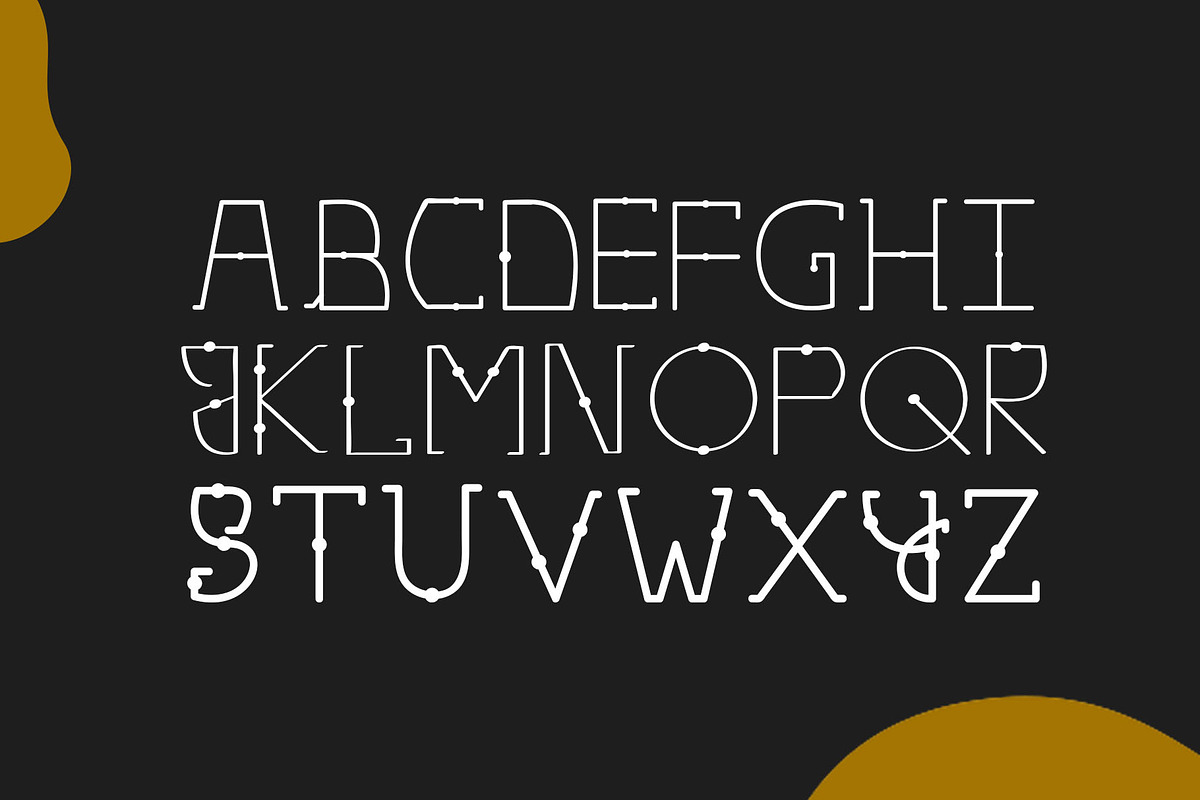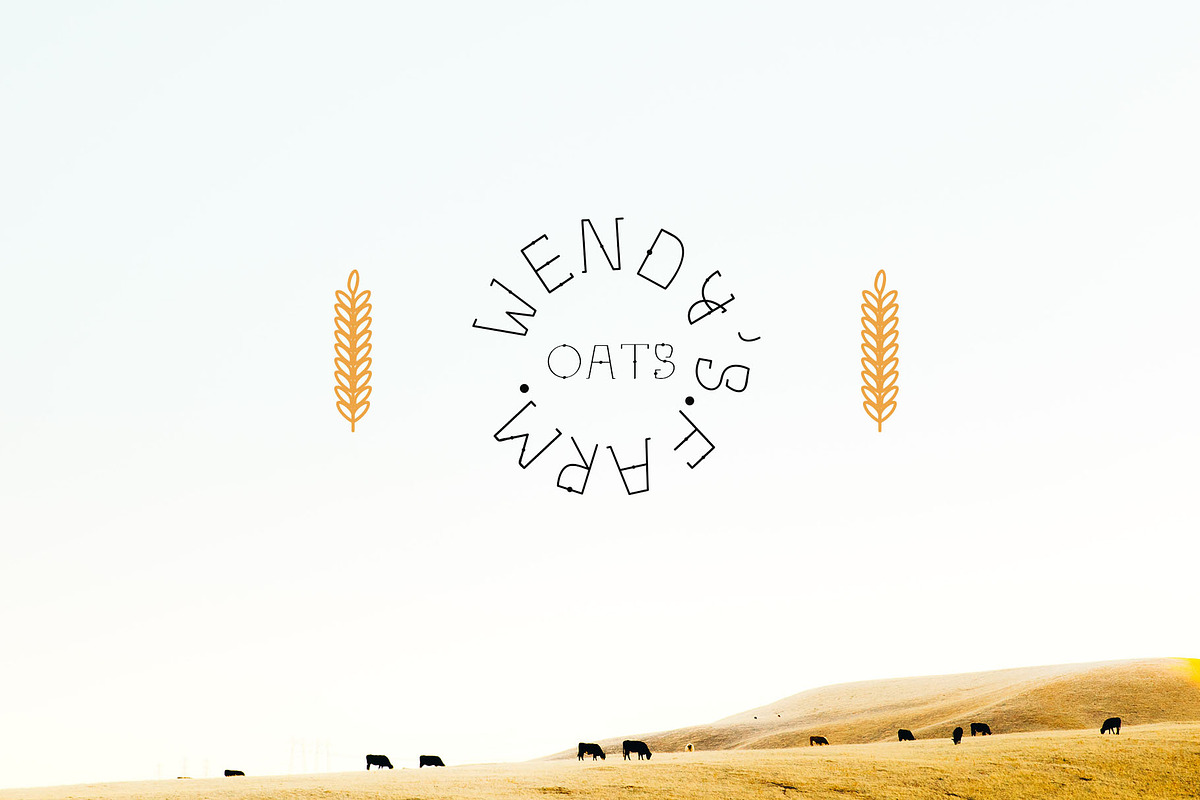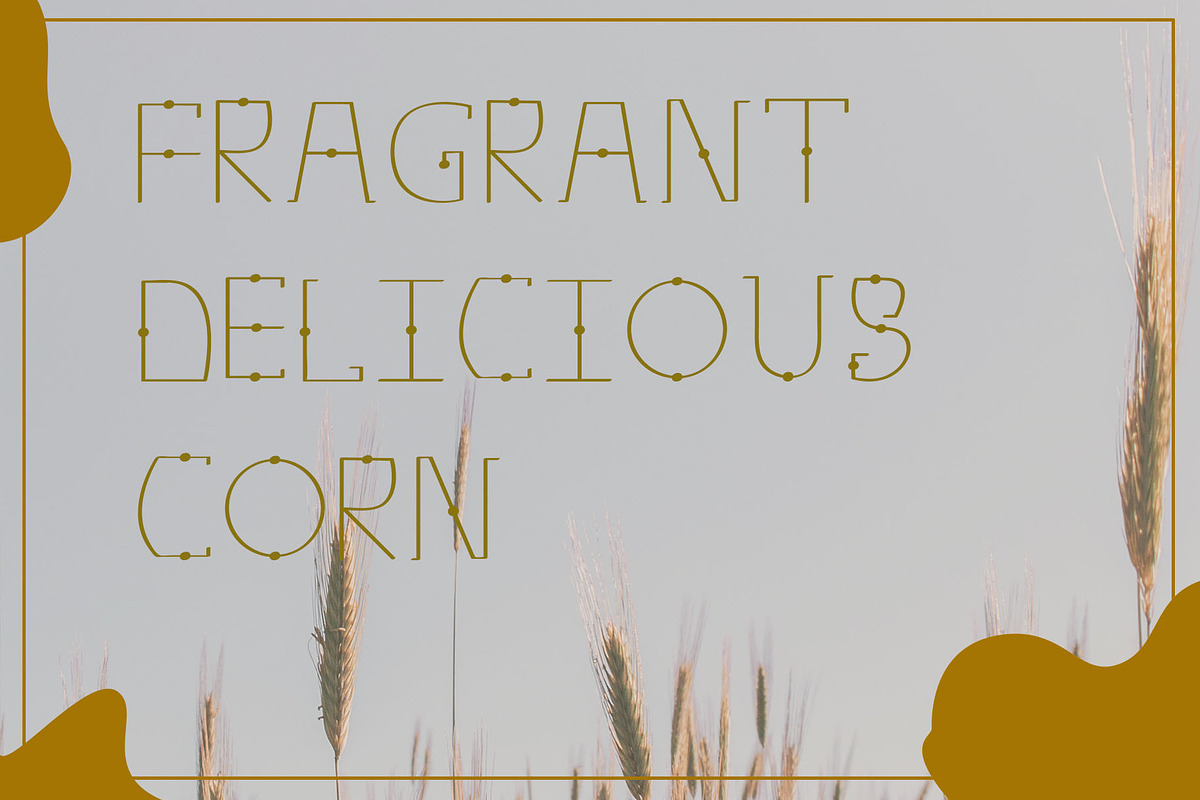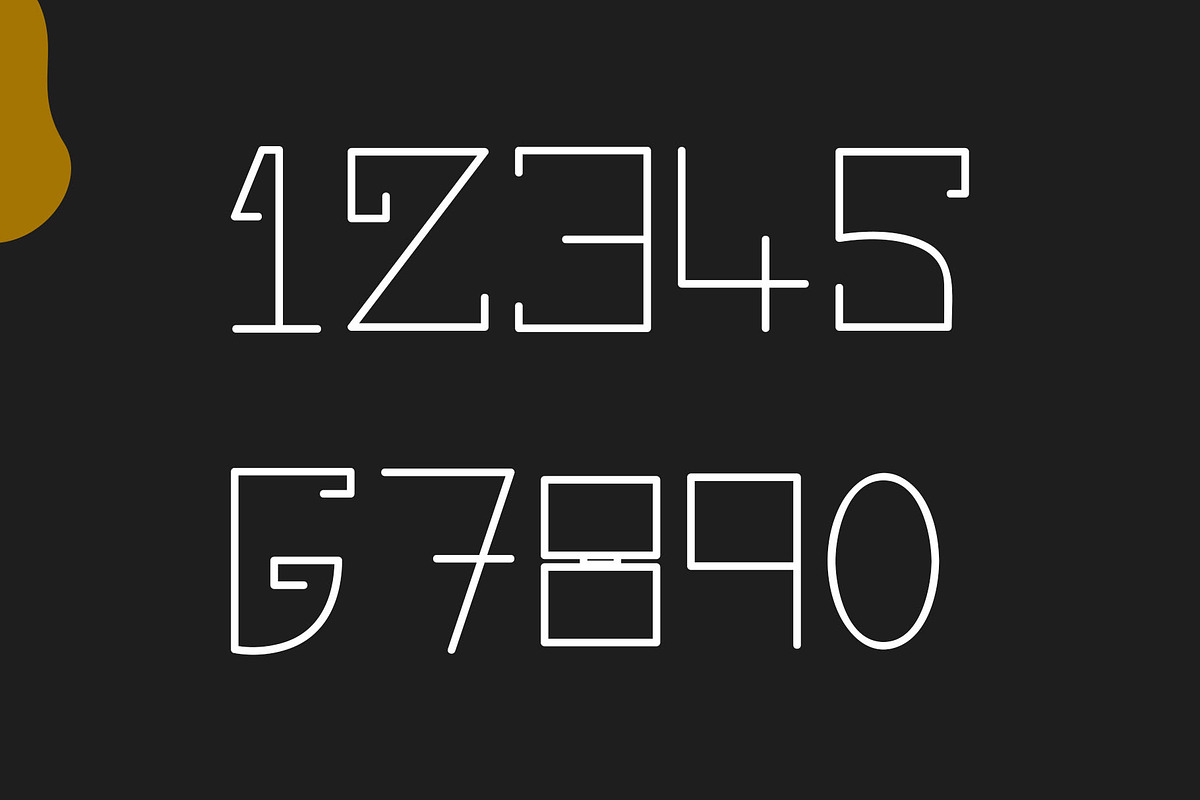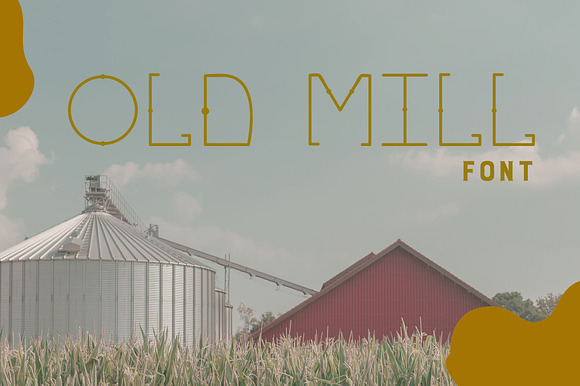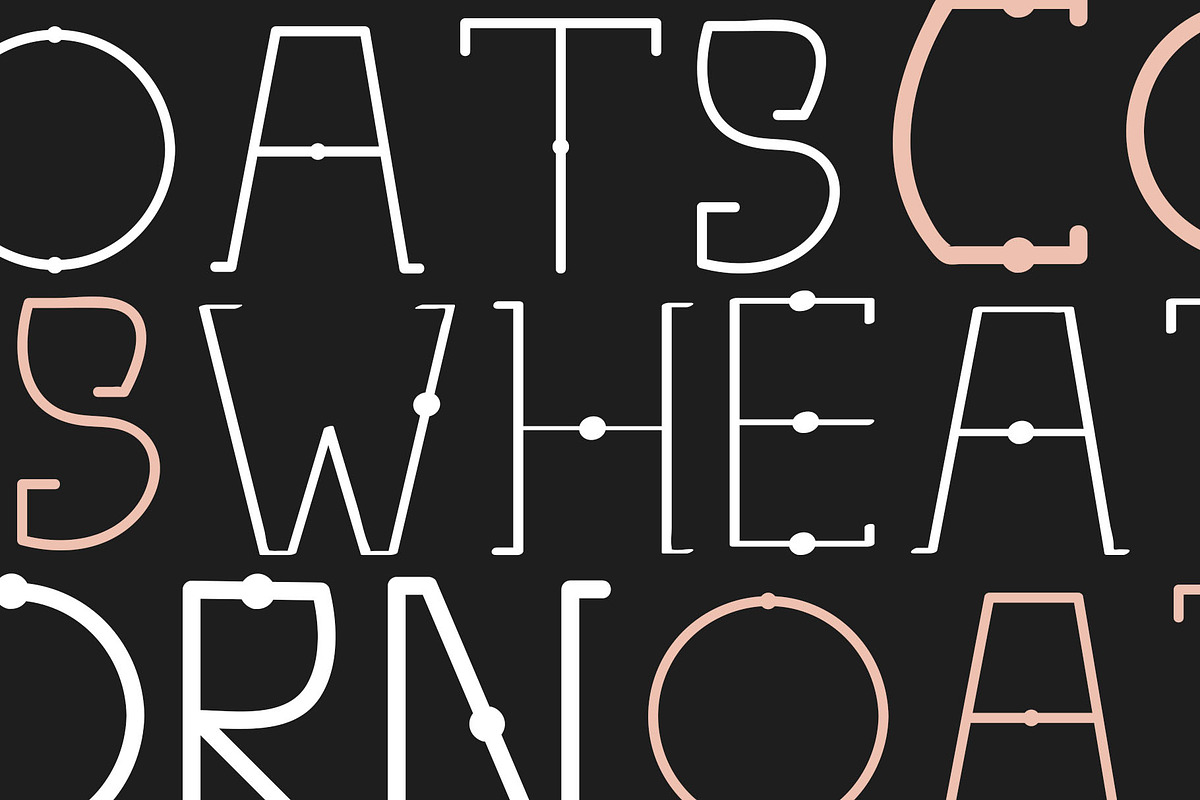
OLD MILL Font
A classy modern font.
- OLDMILL Regular
- OLDMILL Bold
- OLDMILL SHARP
OLD MILL Font by CandiesnPixels fits naturally into Branding, posters, packaging, typography.